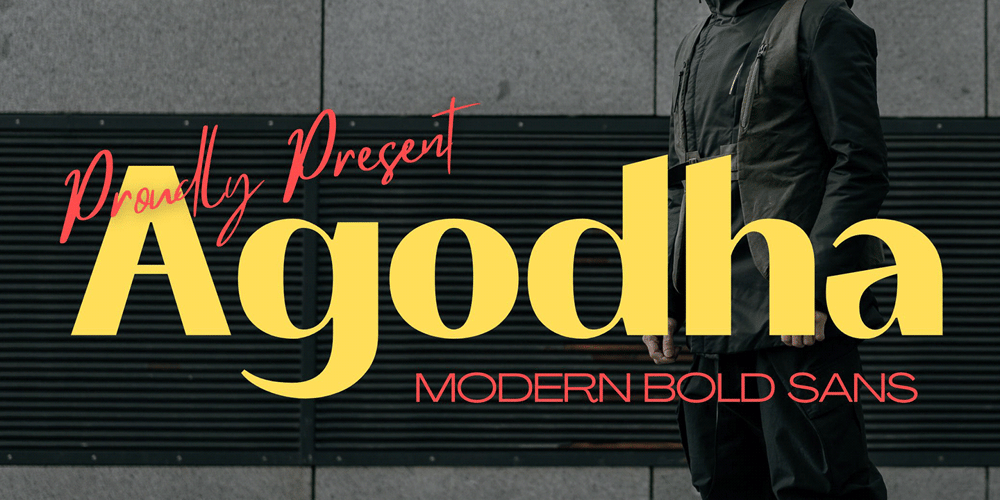
Agodha
Agodha font
Agodha Font Family was designed by Rinto Dwi Nugroho and published by Almeera Studio. Agodha contains 1 styles and family package options. Introducing our newest typeface called Agodha Typeface . can make your lettering / logotype become more interesting. This font perfectly made to be applied especially in logo, and the other various formal forms such as invitations, labels, logos, magazine headers, books, greeting / wedding cards, Clothing Branding, product packaging, fashion, make up, quotes, stationery, novels,cutting, labels and advertising purpose.Thanks & Happy Designing !